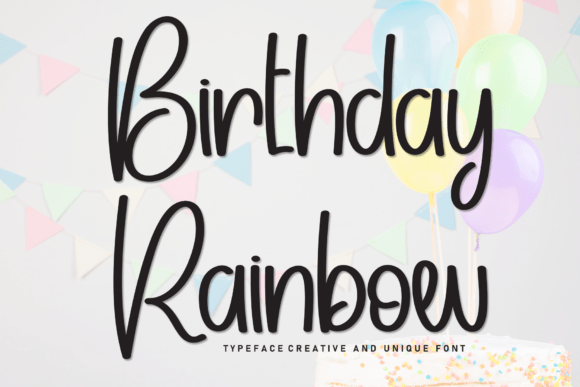
The Magic of Birthday Rainbow Font: Elevate Your Designs with a Splash of Color
I still remember the time I was working on a birthday party invitation for a client’s little one. I had the design concept all sorted out, but I was stuck on finding the perfect font. I wanted something that would capture the whimsical and playful essence of a child’s birthday celebration. That’s when I stumbled upon the Birthday Rainbow font, and it instantly became the star of the show! ✨
A Font that Brings Joy and Whimsy
Birthday Rainbow is a tall, slender display font that introduces a “new style” of creative and unique typography. Its vertically elongated letterforms, consistent monolinear stroke weight, and smooth, rounded character joins make it a standout in any design. The minimalist structure is beautifully balanced by slightly irregular character widths and a high x-height, giving the text a breezy and imaginative personality.
What I Love About Birthday Rainbow Font
• ✨ Unique and creative typography that’s sure to grab attention
• ✅ Perfect for party invitations, children’s book titles, creative editorial headers, and vibrant social media graphics
• 🌈 Available in a range of colors to match your brand or design theme
• 👍 Highly legible despite its slender and elongated design
While Birthday Rainbow font is an amazing addition to any design project, there are a few things to keep in mind: 🤔
• ⚠️ May not be suitable for body text due to its slender design
• ⚠️ Limited availability of special characters and glyphs
One of the best things about Birthday Rainbow font is its OpenType features and glyphs. These special characters can add an extra layer of creativity to your designs. Here are a few tips on how to access them:
The Backstory Behind Birthday Rainbow Font
The creator of Birthday Rainbow font was inspired by the magic of childhood celebrations. They wanted to design a font that would capture the whimsy and playfulness of birthday parties, while also being versatile enough for various design projects. The result is a font that’s both imaginative and elegant, perfect for adding a touch of personality to your designs.
Q: What type of projects is Birthday Rainbow font best suited for?
A: Birthday Rainbow font is perfect for party invitations, children’s book titles, creative editorial headers, and vibrant social media graphics.